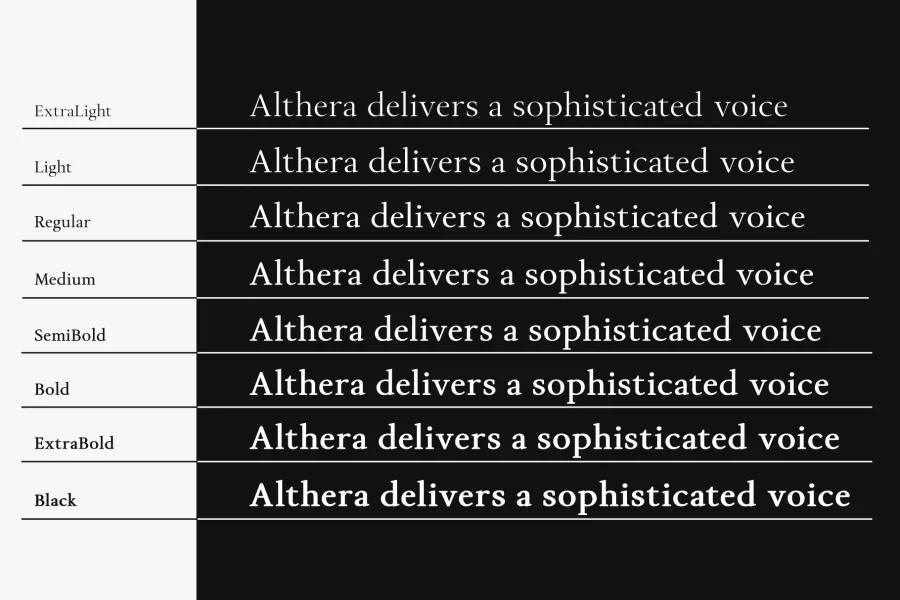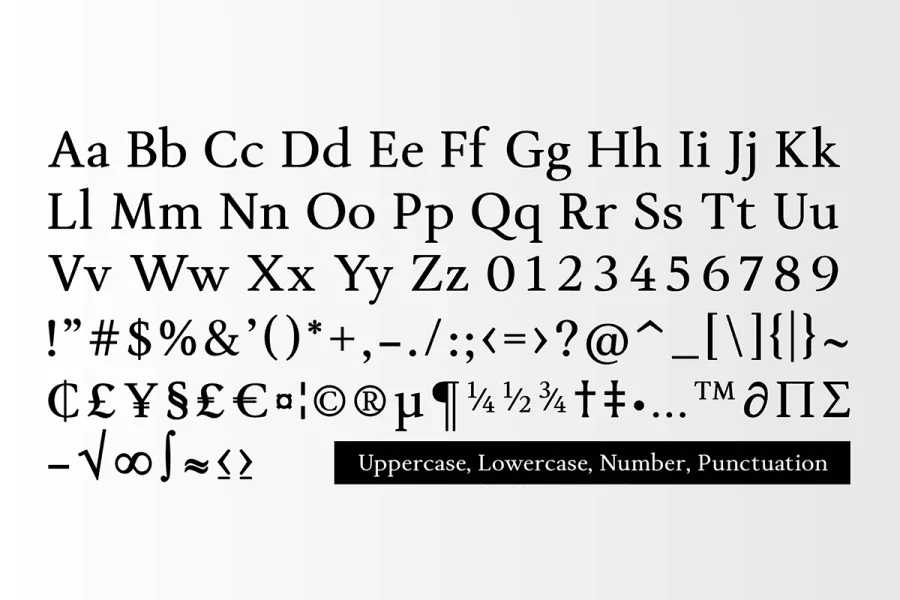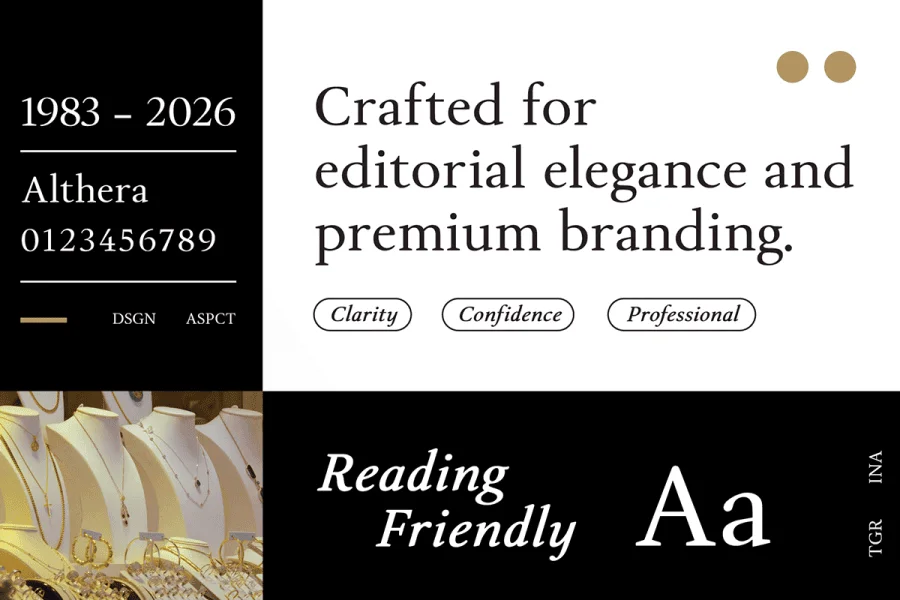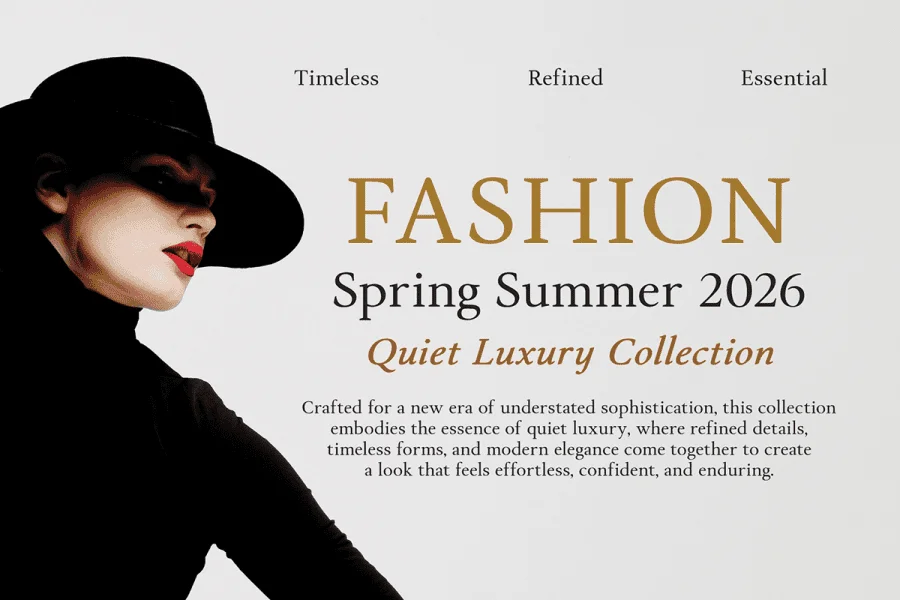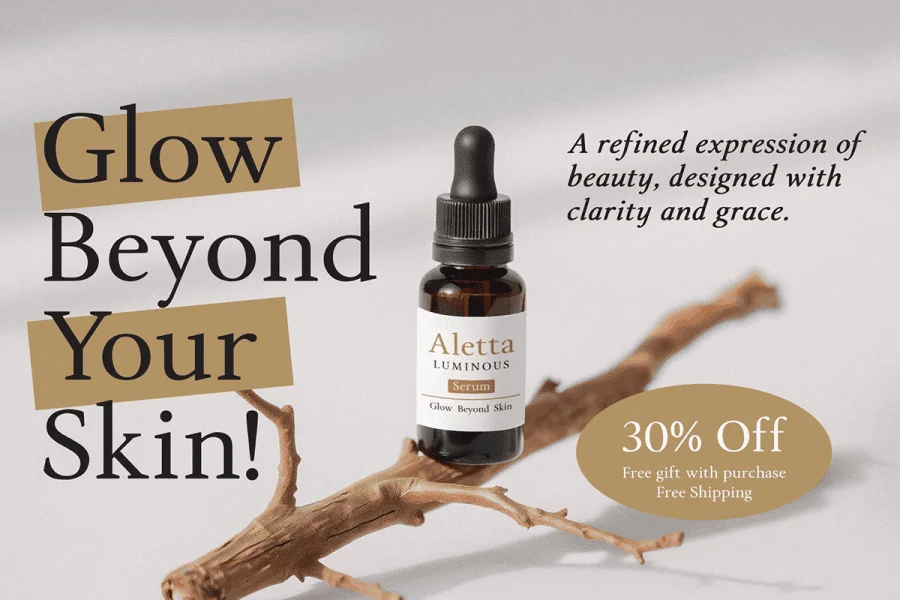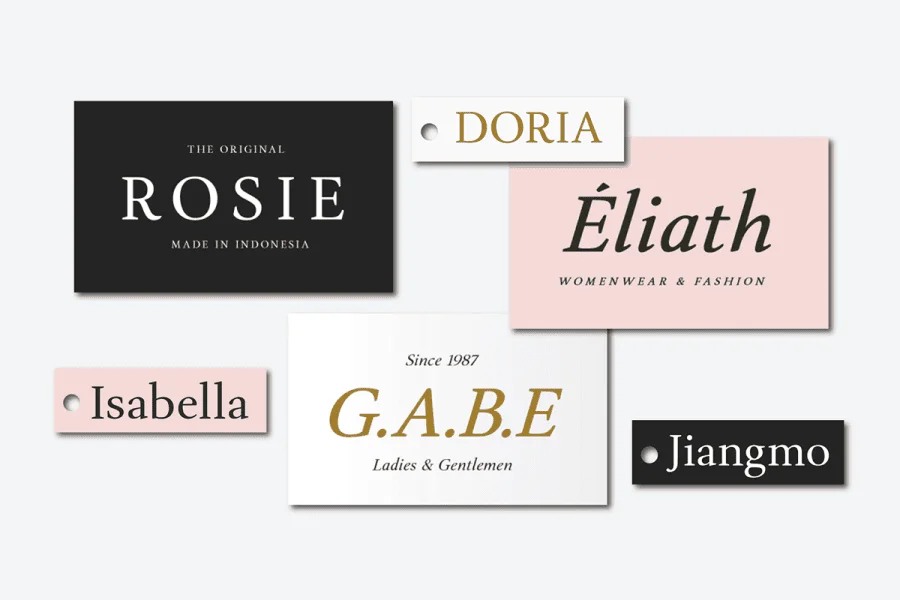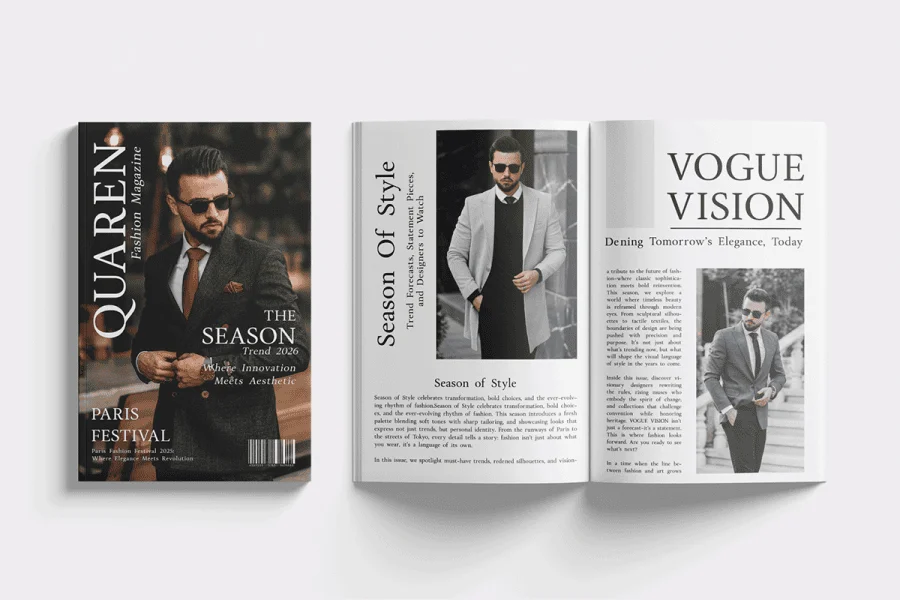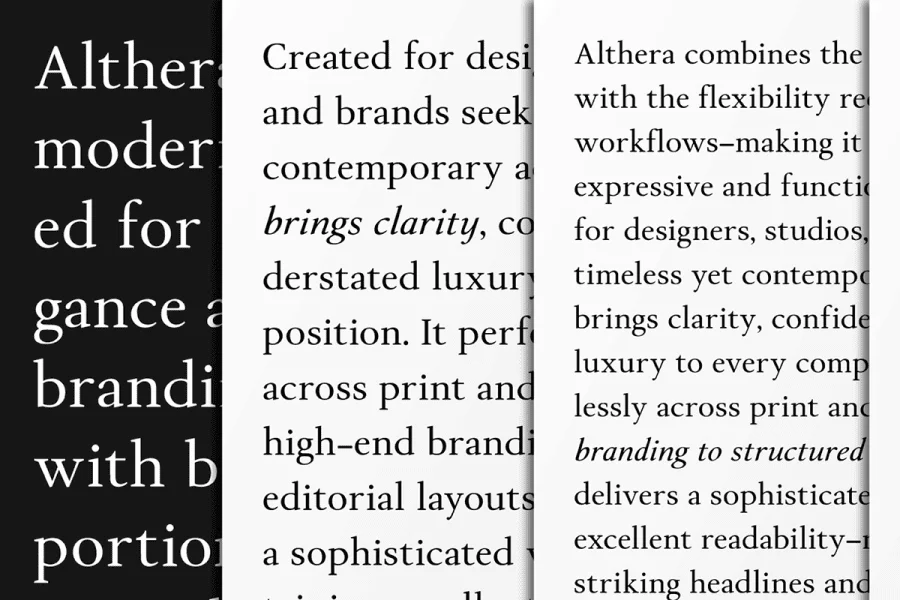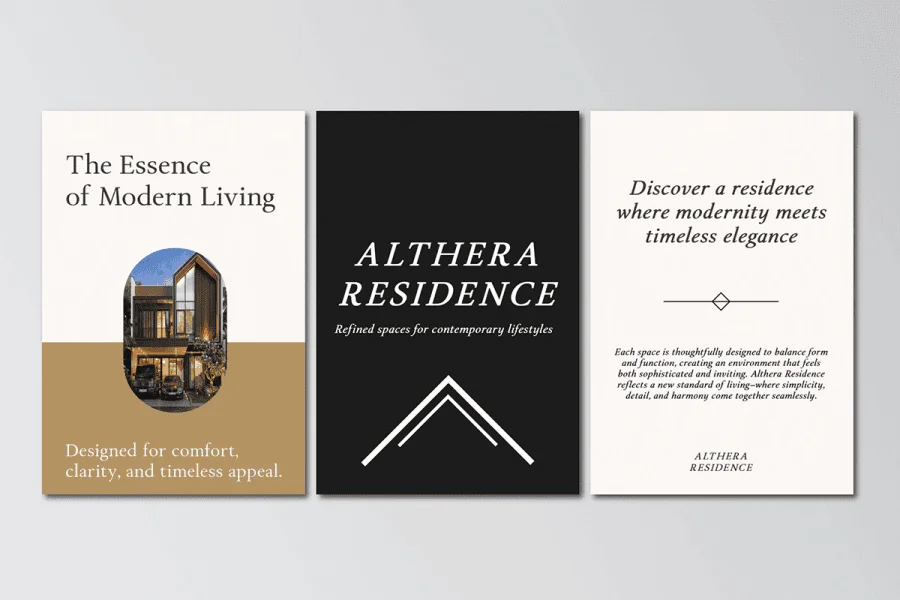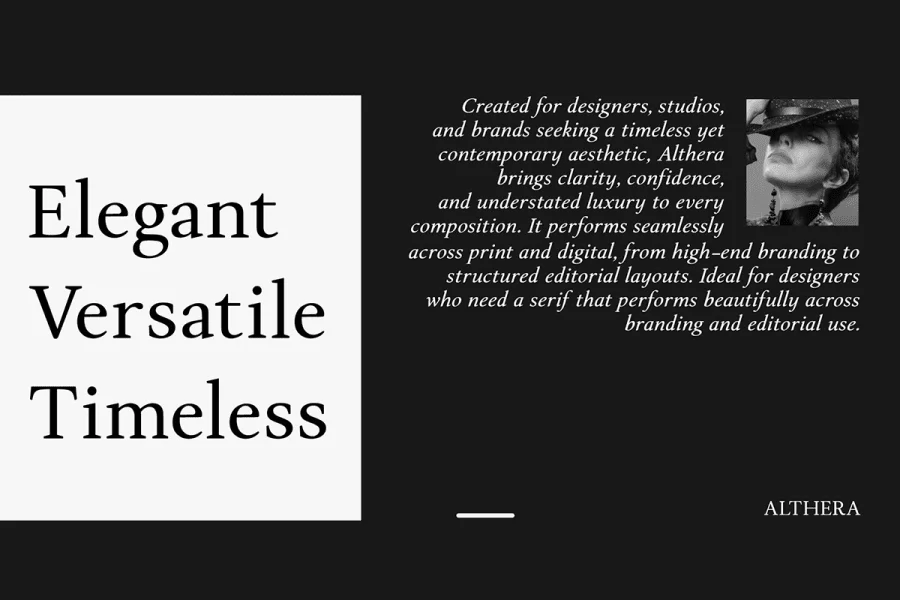
Althera – Modern Editorial Serif for Luxury Branding
Althera is a refined modern serif crafted for editorial elegance and premium branding. Designed with balanced proportions and smooth, controlled contrast, Althera delivers a sophisticated voice while maintaining excellent readability, making it ideal for both striking headlines and extended text.
Created for designers, studios, and brands seeking a timeless yet contemporary aesthetic, Althera brings clarity, confidence, and understated luxury to every composition. It performs seamlessly across print and digital, from high-end branding to structured editorial layouts.
Althera, where editorial elegance meets modern branding.